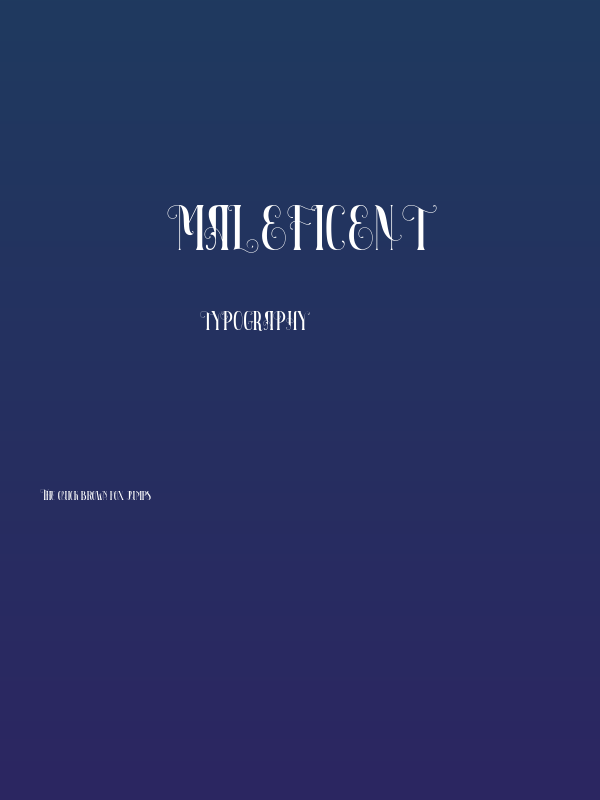
Maleficent Font
Maleficent Description
This font features a dramatic and gothic style, characterized by sharp, pointed serifs and elongated strokes that evoke a sense of mystery and elegance. The letters are intricately designed with a high level of detail, making them suitable for creating a dark, enchanting atmosphere. The overall appearance is both bold and sophisticated, with a unique flair that captures attention. The font's design is reminiscent of classic fairy tale themes, making it ideal for projects that require a touch of fantasy and intrigue.
Overall StyleGothic, Dramatic, Enchanting
Proposed ProjectsIdeal for fantasy book covers, movie posters, themed invitations, and branding for mystical or magical products.